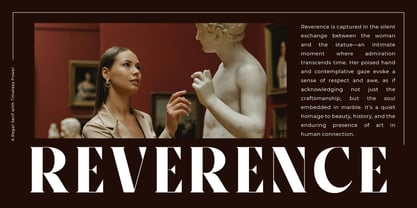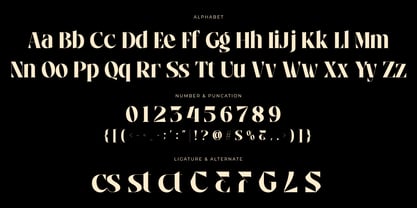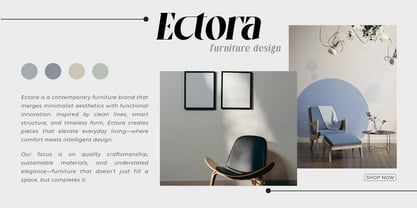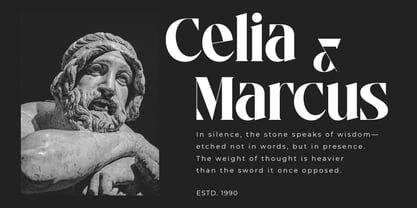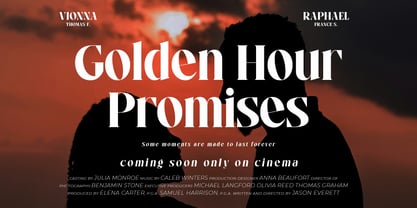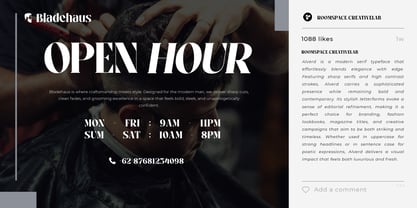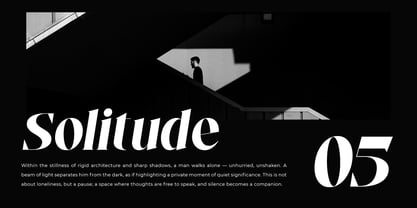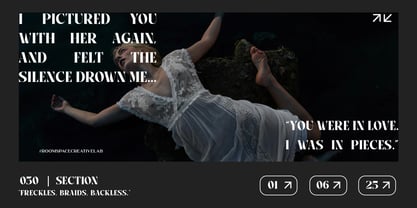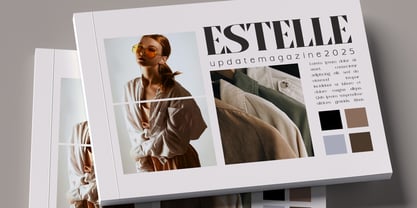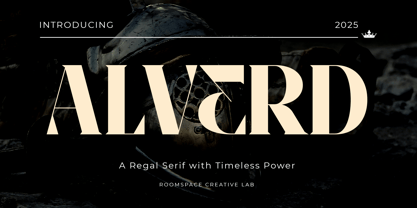
Alverd
by Jafar07
The Alverd Font Family was designed by Bakhrudin Ja'far and published by Jafar07. Alverd contains 2 styles and family package options. More about this family
Alverd is a regal serif typeface that commands attention and infuses your designs with an air of timeless elegance. Drawing inspiration from the strength and sophistication inherent in classical lettering, Alverd masterfully blends bold geometric shapes with intricate details. This font is particularly well-suited for high-impact branding, distinctive logos, captivating headlines, and editorial layouts. With its striking presence and enduring character, Alverd excels in crafting premium visual identities, luxury packaging, dynamic posters, and any project requiring a bold, sophisticated flair. Whether you're designing for a contemporary brand, developing a historical theme, or creating a compelling statement piece, Alverd brings unparalleled style and confidence to every application.
Designers: Bakhrudin Ja'far
Foundry: Jafar07